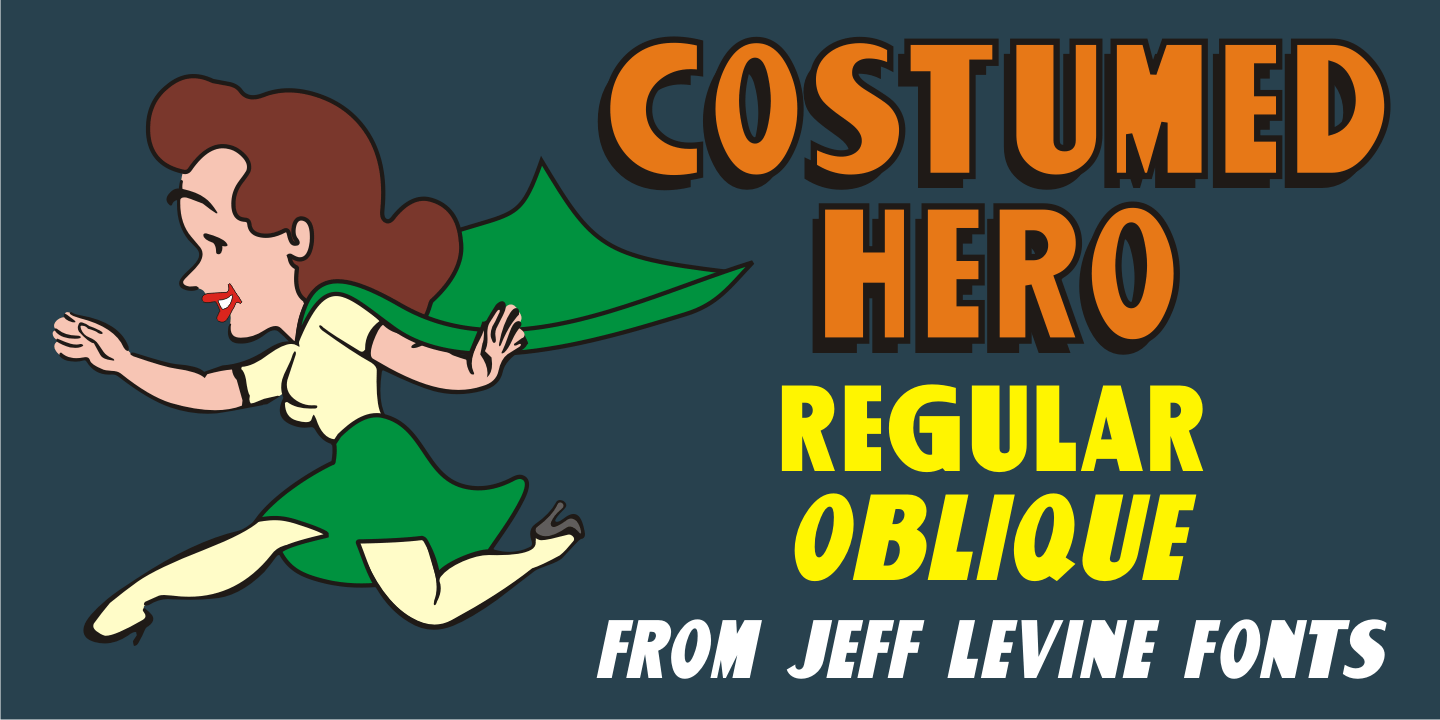
Costumed Hero
Comic books are filled with pages full of the daring adventures of crime fighters with colorful costumes, amazing abilities and wondrous powers. They have enthralled kids of all ages since the 1930s.
Costumed Hero JNL emulates both the hand lettered cover titles of those vintage comics as well as the title credits from a 1960s television show based on one of these characters.
With its non-conforming letter shapes and varying widths, the lighthearted look of classic comic title art can be yours. The font is available in both regular and oblique versions.